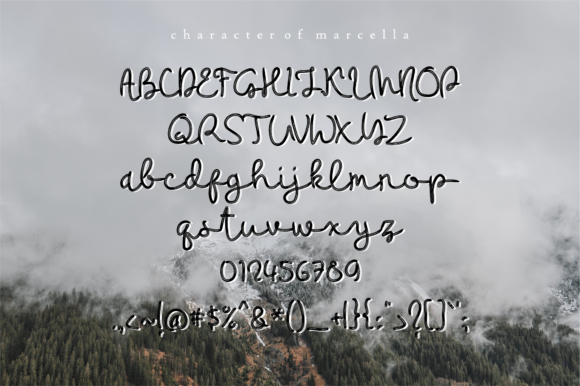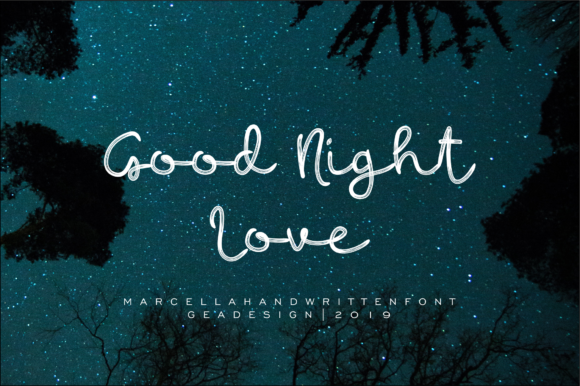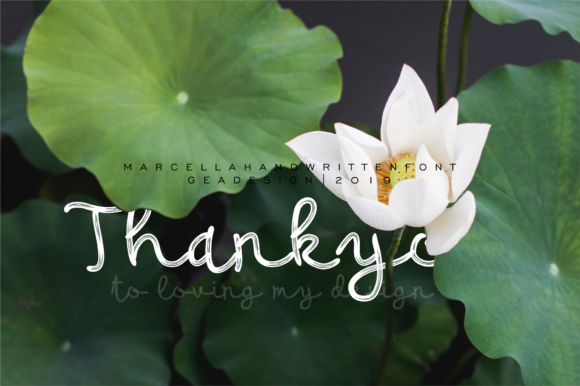
Marcella Font
About Marcella Font
Marcella is a beautiful and unique handwritten font with amazing elements. Get inspired by its authentic charm, and turn any design project into a true stand out!